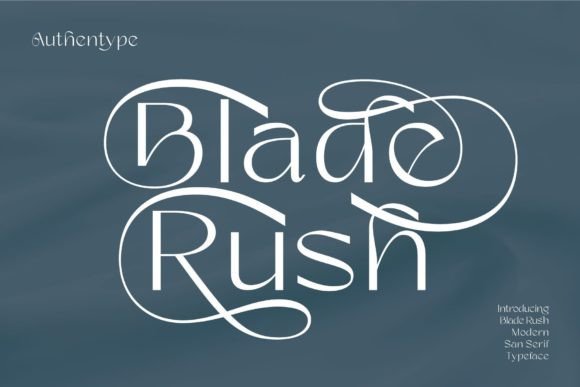
Introducing Blade Rush Font - The Epitome of Modern Sophistication
In a world where first impressions matter, your resume is your gateway to the job of your dreams. Blade Rush Font, the ultimate sans serif font, is meticulously crafted to make your resume stand out from the crowd, leaving a lasting impact on potential employers. With its clean lines, elegant curves, and versatile style, Blade Rush is the secret weapon you need to showcase your skills and experiences in a compelling and professional manner.
Step into the Spotlight with Blade Rush's Unparalleled Features:
- A Full Repertoire of Characters: Blade Rush boasts a comprehensive character set, including uppercase and lowercase letters, multilingual symbols, numbers, punctuation, and ligatures. This extensive range ensures compatibility with a diverse array of languages and applications, making it the perfect choice for global professionals.
- The Art of Simplicity: Blade Rush's sans serif design exudes a minimalist charm that allows your words to take center stage. Its clean lines and unadorned letterforms create a visually appealing and distraction-free reading experience, ensuring that recruiters focus solely on your qualifications and achievements.
- A Style Symphony: Blade Rush's versatility knows no bounds. Whether you're crafting a resume for a creative industry or a corporate position, Blade Rush seamlessly adapts to your unique style. Its elegant curves and subtle swashes add a touch of sophistication, while its strong and confident strokes convey a sense of authority and professionalism.
- A Global Ambassador: Blade Rush's multilingual capabilities make it an ideal choice for professionals seeking employment across borders. With support for a wide range of languages, Blade Rush ensures that your resume resonates with recruiters worldwide, opening up a world of opportunities for you.
Unleash Your Potential with Blade Rush:
Make a Statement: Blade Rush's striking presence commands attention, ensuring that your resume stands out in a sea of mediocrity. Its unique design elements, such as the swash glyphs, add a touch of visual interest that captivates the reader, encouraging them to delve deeper into your qualifications.
Craft a Narrative: Blade Rush's clean and contemporary style provides the perfect backdrop for your professional narrative. Its minimalist design allows your words to shine through, enabling you to craft a compelling story that highlights your skills, experiences, and aspirations. With Blade Rush, your resume becomes a testament to your professionalism and dedication.
Leave a Lasting Impression: In today's competitive job market, a well-crafted resume is your chance to make a lasting impression. Blade Rush empowers you to create a resume that reflects your unique personality and career goals. Its versatility and adaptability ensure that your resume resonates with potential employers, leaving them with a positive and lasting memory of your application.